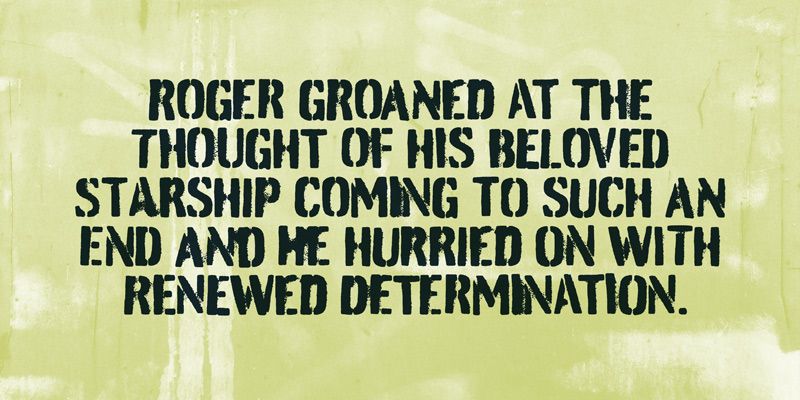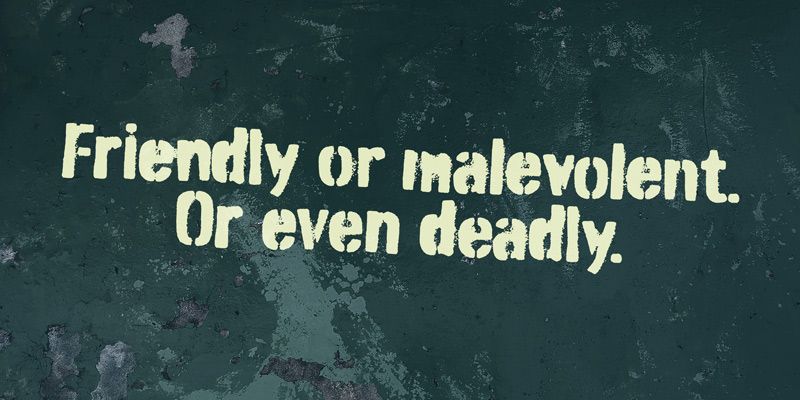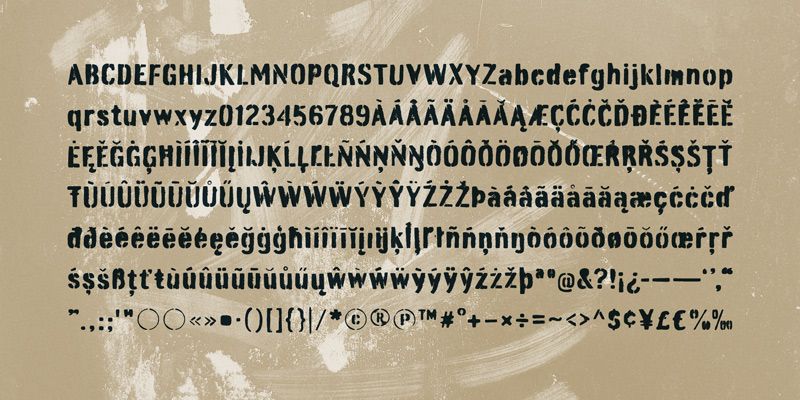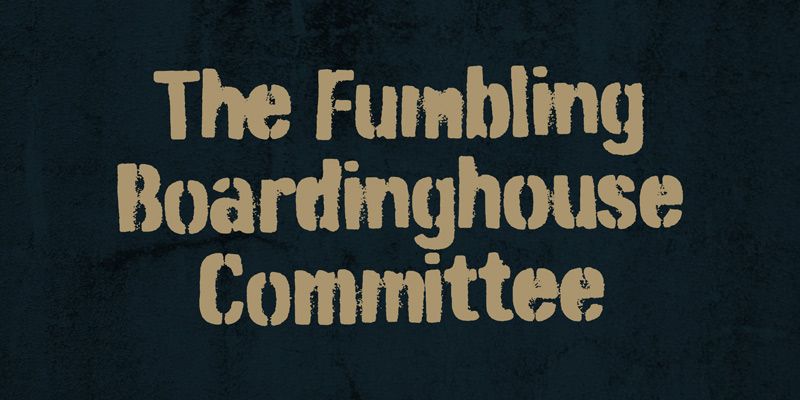
Burnaby Stencil brings sprayed lettering into a compact, squared alphabet. Its rough edges, incomplete paint, and stencil breaks suggest a mark made quickly on plywood or concrete, yet the underlying forms remain organized enough for a repeatable graphic identity. It suits construction hoarding, redevelopment campaigns, warehouse conversions, and material-reuse projects, where polished branding has to meet unfinished physical surfaces. The same voice can carry location names and environmental text in films, games, and exhibitions: freight doors, temporary compounds, storage zones, and workshop walls. Those changing surfaces give its overspray a convincing place to live.